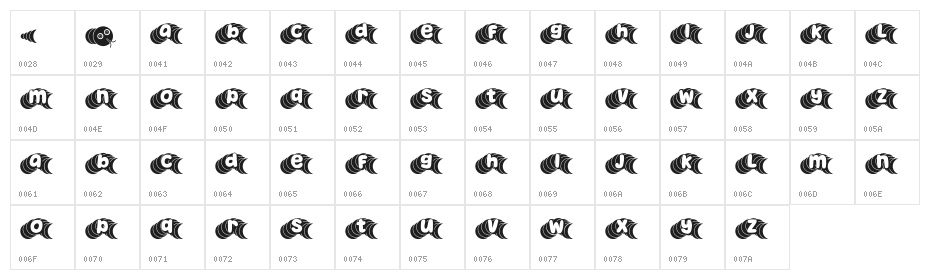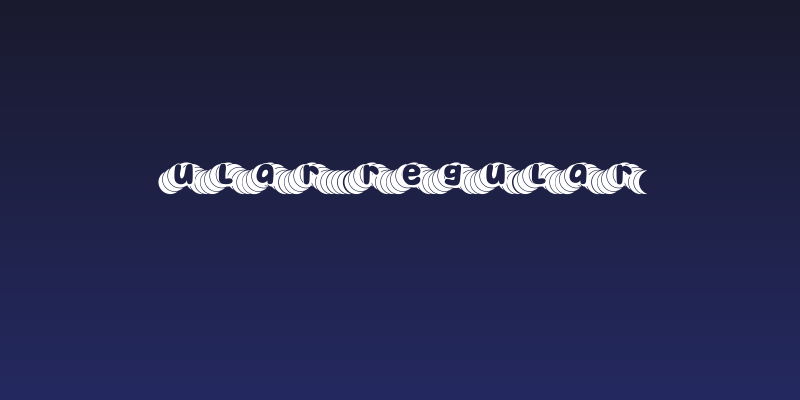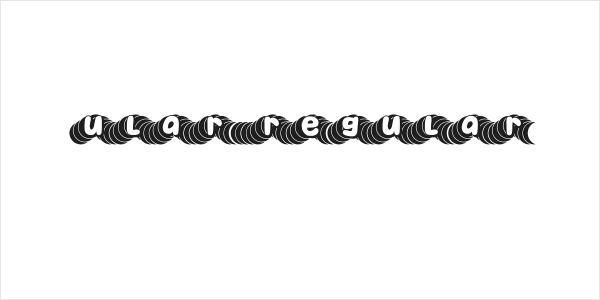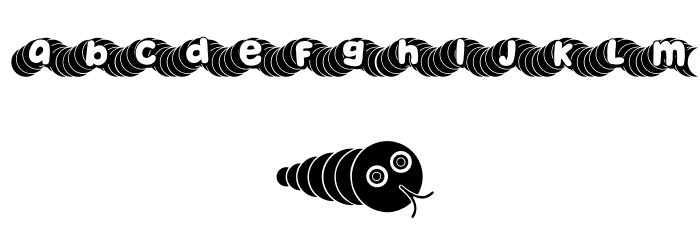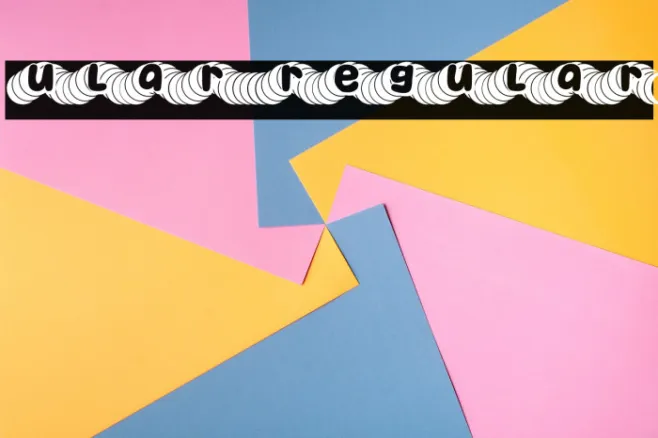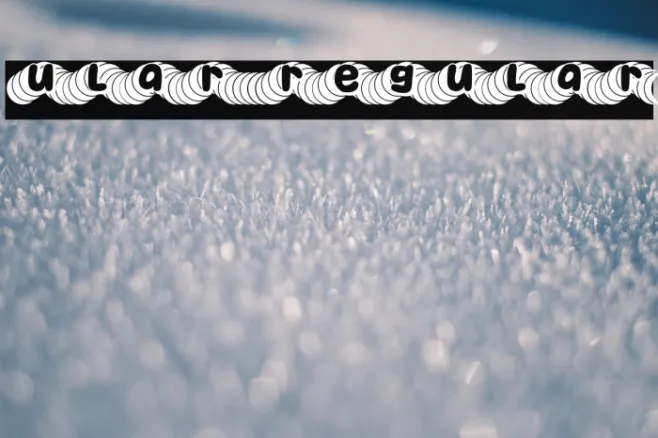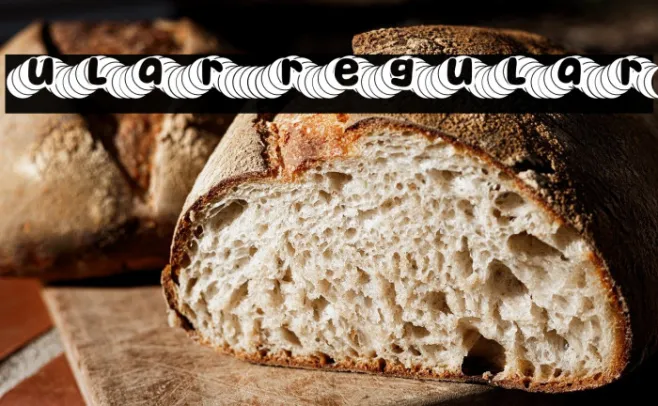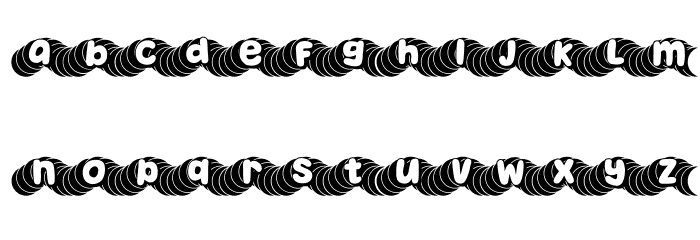
Ular Regular Font
Ular Regular Description
This playful and whimsical font features characters that are creatively designed to resemble a series of connected, swirling shapes, reminiscent of a caterpillar or a playful wave. Each letter is encased within these swirling forms, giving the font a unique and eye-catching appearance. The bold, black shapes create a strong visual impact, making it ideal for designs that require a fun and engaging aesthetic. The font maintains a consistent style across both uppercase and lowercase letters, as well as numbers and special characters, ensuring a cohesive look in any project.
| Proposed Projects | Ideal for children's books, playful branding, event invitations, and creative posters. |